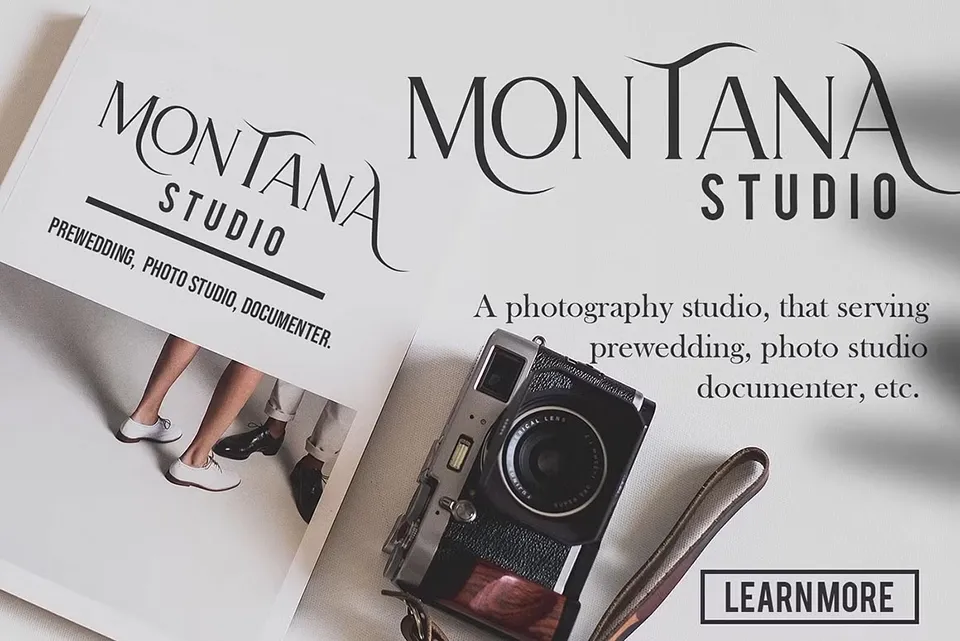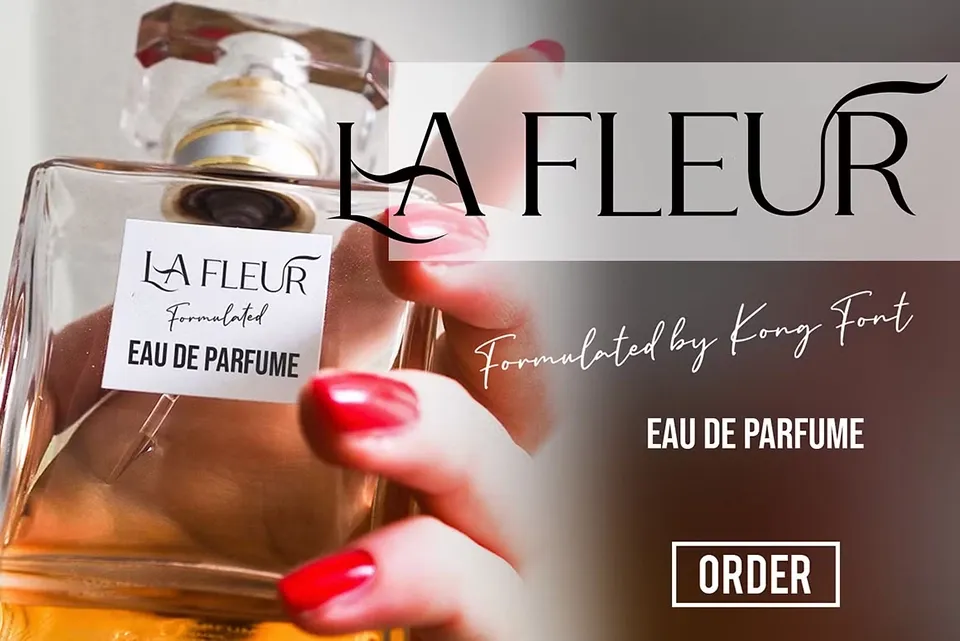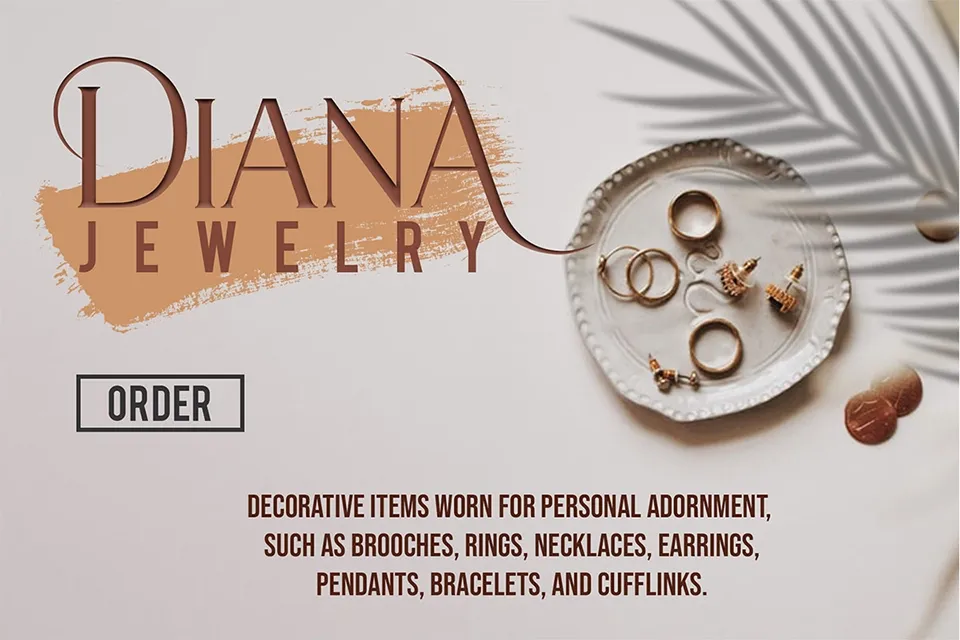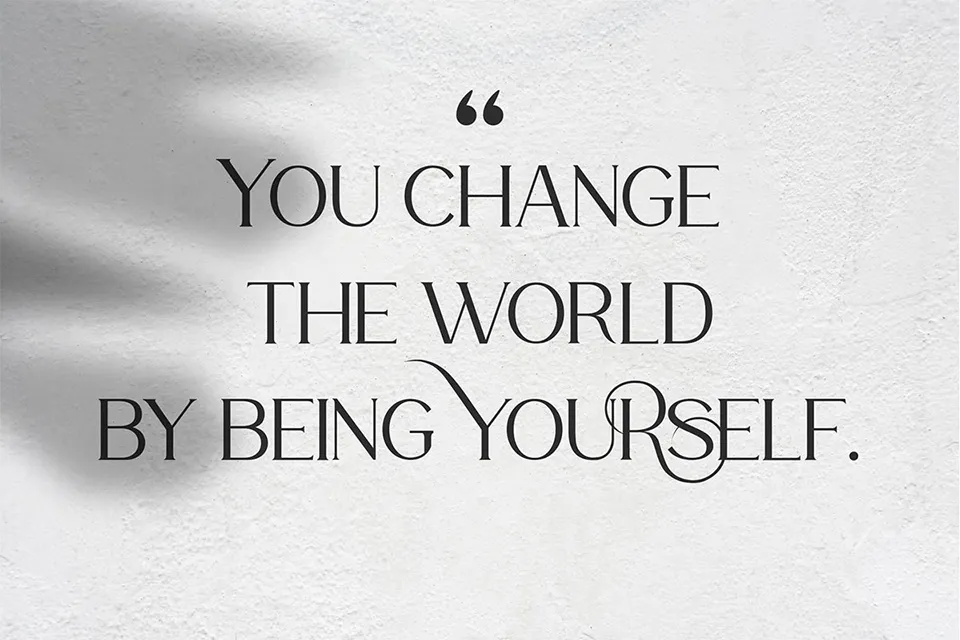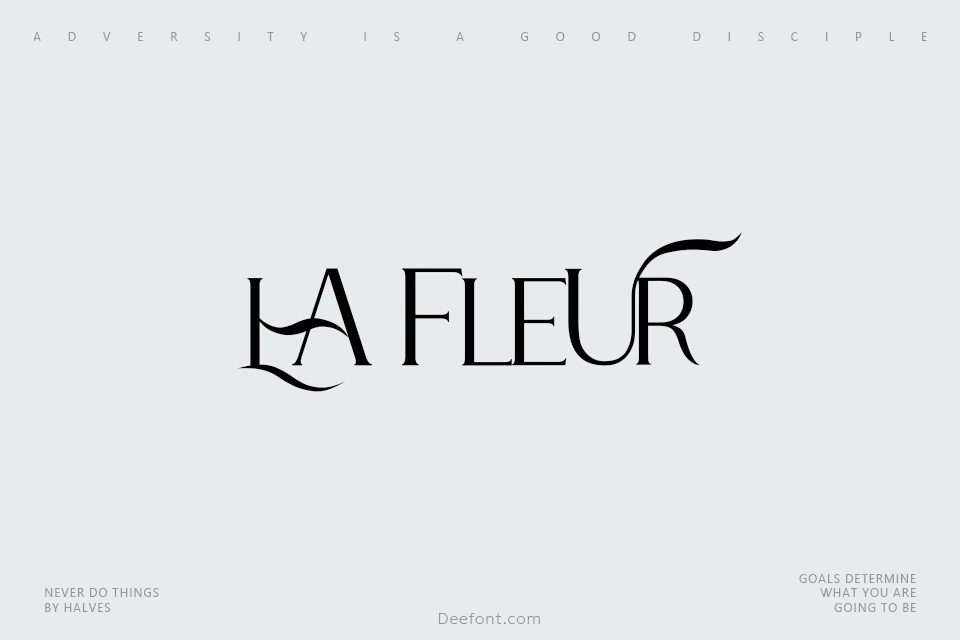
La Fleur Serif Font
La Fleur Serif Font is a modern and elegant typeface designed to bring sophistication and artistry to your projects. With its sleek lines, delicate curves, and floral-inspired accents, this font is perfect for creating luxurious designs that stand out. Ideal for branding, wedding invitations, editorial layouts, and high-end packaging, La Fleur Serif Font combines timeless serif elements with a contemporary flair. Its unique character details add a touch of creativity while maintaining excellent readability. Whether used for bold headlines or refined text, La Fleur Serif Font elevates your design with an air of elegance and charm. Make your work bloom beautifully!